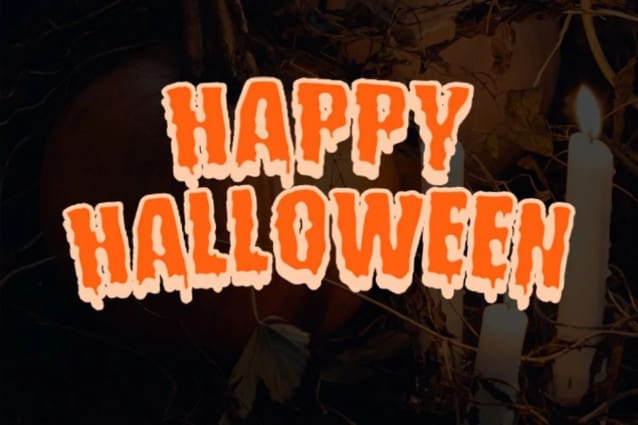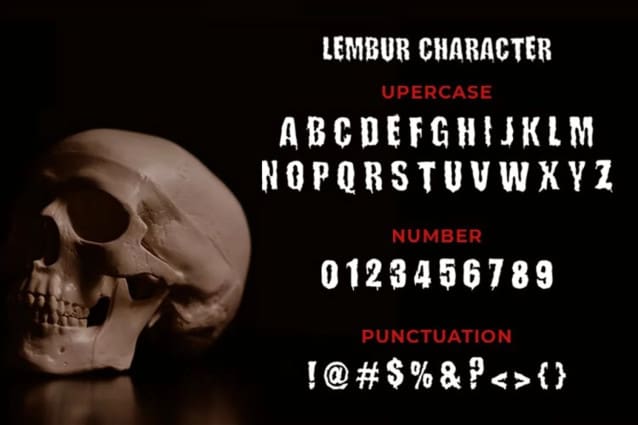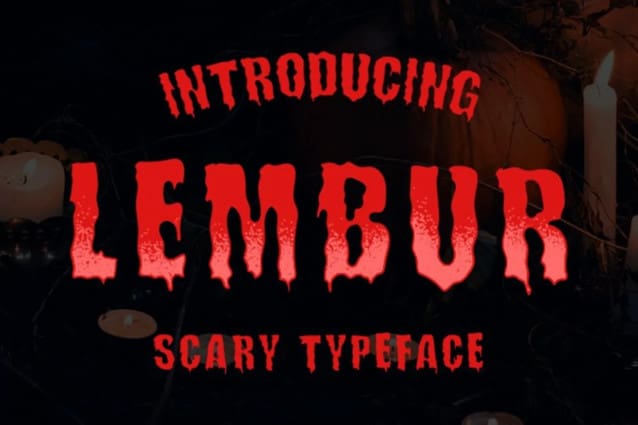
LEMBUR DISPLAY TYPEFACE
Lembur Display Font is a scary style font. design for a series of Halloween posters inspired by local brewing events, the goal being to achieve a medieval design look and feel; with stress and rough lines, comes the first of many seasons fonts.